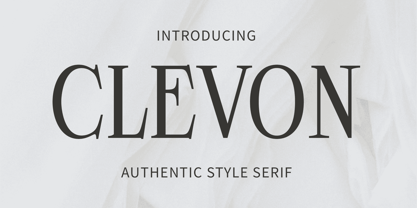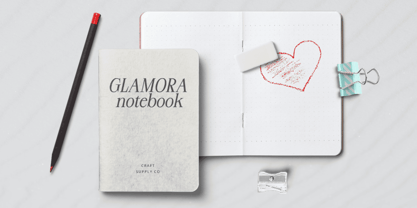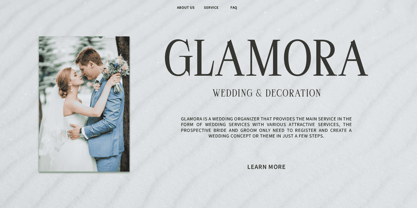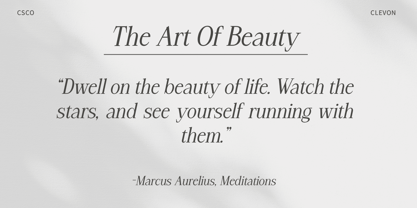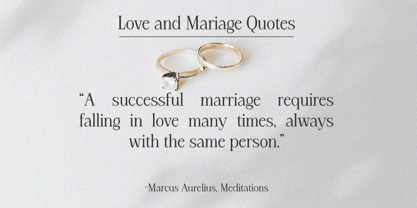
Clevon
by Craft Supply Co
The Clevon Font Family was designed by Trio Nazzar Saputra, Wahyu Hadi Yuana and published by Craft Supply Co. Clevon contains 2 styles and family package options. More about this family
Clevon Font – Elevating Typography with Authenticity
High Contrast, Authentic Design
Clevon presents a striking serif font with authentic shapes and high contrast, ensuring its suitability for both display and body text purposes.
Bold Presence, Timeless Appeal
With its bold presence and timeless appeal, This font commands attention in any design context, whether it’s on posters, websites, or editorial layouts.
Versatility for Various Applications
Clevon’s versatility shines through in its ability to adapt to diverse applications, seamlessly transitioning from eye-catching headlines to readable body text with ease.
A Blend of Tradition and Modernity
Combining traditional serif elements with a modern twist, This font offers a perfect balance between classic elegance and contemporary design trends.
Versatile Typeface for Every Occasion
This font stands out as a versatile typeface suitable for a wide range of applications. Its high contrast and authentic serif shapes ensure readability and visual appeal in both display and body text settings. Whether you’re designing for print or digital, Clevon delivers a touch of sophistication and authenticity to your projects.
Designers: Trio Nazzar Saputra, Wahyu Hadi Yuana
Foundry: Craft Supply Co